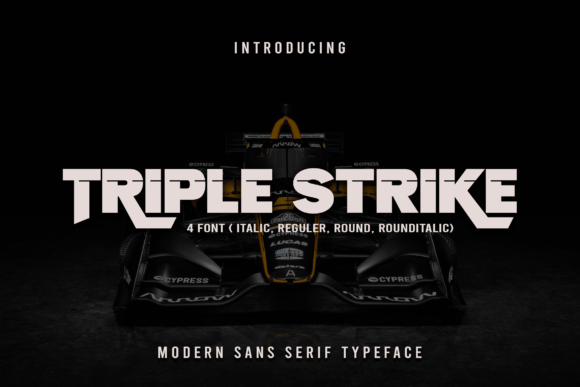
Triple Strike: A Stylish Font for Every Project
If you're looking for a font that combines modern design with versatility, Triple Strike is a standout choice. This sans serif display font is perfect for anyone who wants to add a touch of sophistication and style to their work. Whether you're designing a logo, creating marketing materials, or working on a personal project, Triple Strike can make your designs stand out.
One of the key advantages of Triple Strike is its PUA encoding. This means that you can access all of the font's glyphs and ligatures without any issues. No need to worry about missing characters or complicated installation processes. With Triple Strike, you can easily incorporate unique symbols and special characters into your designs, giving your work a more polished and professional look.
What Makes Triple Strike Unique?
Triple Strike isn't just another font in a long list of options. Its clean lines and balanced proportions make it highly readable, even at smaller sizes. The font maintains a strong visual presence while still being easy on the eyes. This makes it ideal for both digital and print media, ensuring that your message is clear and impactful no matter where it appears.
The font's modern aesthetic gives it a contemporary feel that works well with a wide range of design styles. Whether you're going for a minimalist approach or something more bold and eye-catching, Triple Strike adapts seamlessly. Its versatility makes it a valuable addition to any designer's toolkit, especially when working on projects that require a fresh and innovative look.
Practical Applications of Triple Strike
Triple Strike is incredibly useful across various industries and use cases. For professionals in marketing and advertising, this font can help create compelling headlines and branding elements that capture attention. Its clean design ensures that your message is delivered clearly, making it an excellent choice for posters, banners, and social media graphics.
Entrepreneurs and business owners will find Triple Strike particularly useful for branding efforts. Whether you're launching a new product or updating your company's visual identity, this font can help create a cohesive and memorable brand image. Its ability to convey professionalism and style makes it a great fit for logos, business cards, and website headers.
For educators and students, Triple Strike can be used in presentations, reports, and educational materials. Its readability and modern appearance make it suitable for both digital and printed content, helping to keep audiences engaged and informed. In a classroom setting, using a font like Triple Strike can make learning materials more visually appealing and easier to read.
Enhancing User Experience with Triple Strike
User experience is a critical factor in design, and Triple Strike contributes to this by offering a clean and professional look. When used effectively, it can improve the overall aesthetics of a design, making it more inviting and easier to navigate. This is especially important in digital environments, where users often have short attention spans and expect content to be visually engaging.
In web design, Triple Strike can be used for headings and subheadings to draw attention and guide users through content. Its modern style complements a variety of layouts, making it a flexible option for designers working on websites, apps, and other digital platforms. By choosing a font that enhances readability and visual appeal, you can create a more enjoyable and effective user experience.
Recommendations for Using Triple Strike
When incorporating Triple Strike into your projects, consider the context and purpose of your design. While it's a powerful tool for display purposes, it may not be the best choice for body text due to its decorative elements. Instead, use it for headlines, titles, and other prominent elements that benefit from a strong visual presence.
It's also important to test Triple Strike in different environments to ensure it performs well. Check how it looks on screens of varying sizes and resolutions, and make sure it remains legible in both light and dark mode settings. These considerations can help you get the most out of this versatile font.
For those new to using display fonts, Triple Strike offers a great starting point. Its balance between style and functionality makes it accessible for a wide range of users, from beginners to experienced designers. By experimenting with different applications, you can discover how this font can enhance your creative work and elevate your designs.
Why Choose Triple Strike?
Whether you're a designer, marketer, educator, or business owner, Triple Strike provides a stylish and practical solution for your typography needs. Its modern design, ease of use, and wide range of applications make it a valuable asset to any project. With its ability to enhance visual communication and user engagement, this font can help you achieve your design goals more effectively.
By selecting a font like Triple Strike, you're not just choosing a typefaceโyou're investing in a tool that can help you express your ideas more clearly and creatively. Its combination of style, functionality, and versatility ensures that it will remain a useful resource for years to come.